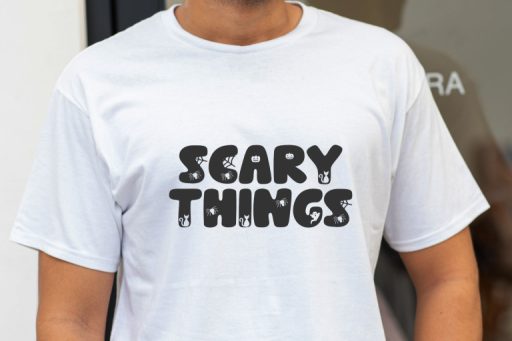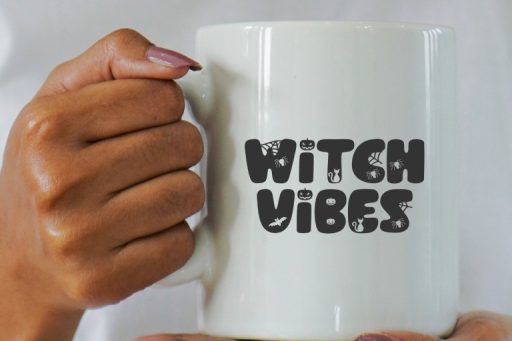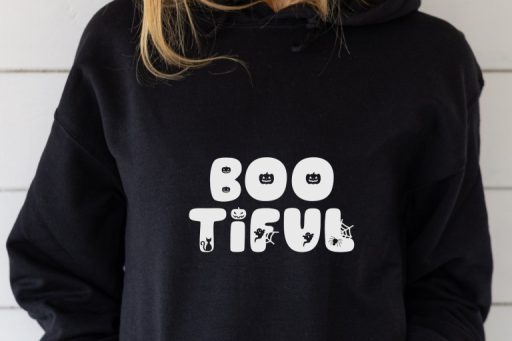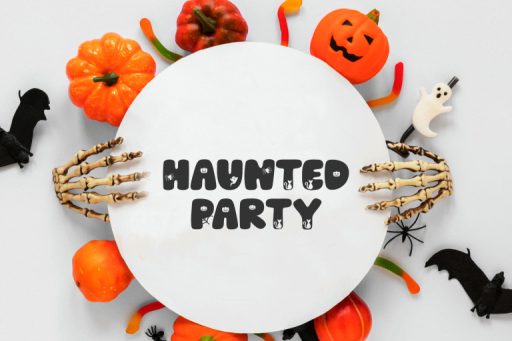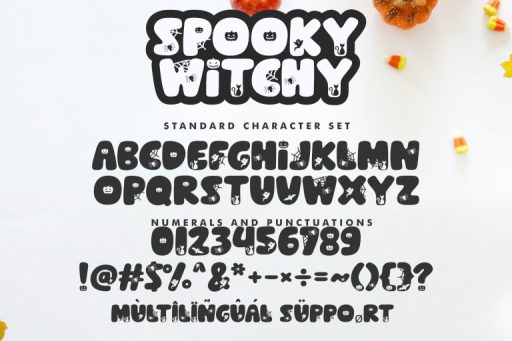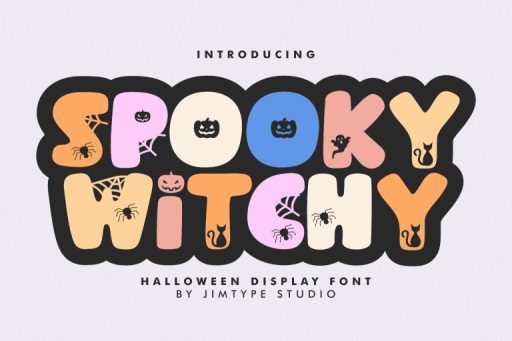
Spooky Witchy - Halloween Font From Jimtype Studio
Spooky Witchy Font
Spooky Witchy – Halloween Font
Introducing the enchanting ‘Spooky Witchy’ Halloween Font – a captivating sans display font designed to add a touch of magic to your creative projects. Whether you’re conjuring Halloween designs or brewing up something extraordinary, ‘Spooky Witchy‘ is your spellbinding companion. Embrace the spooky season with style and charm. Explore our font collection now and let your creativity soar like a witch’s broomstick.